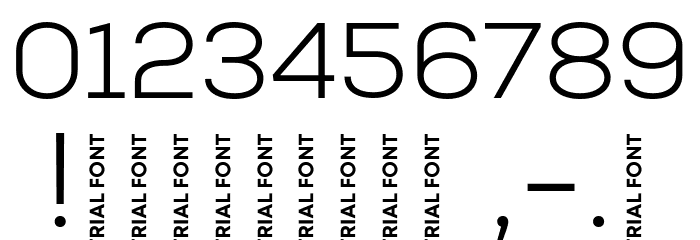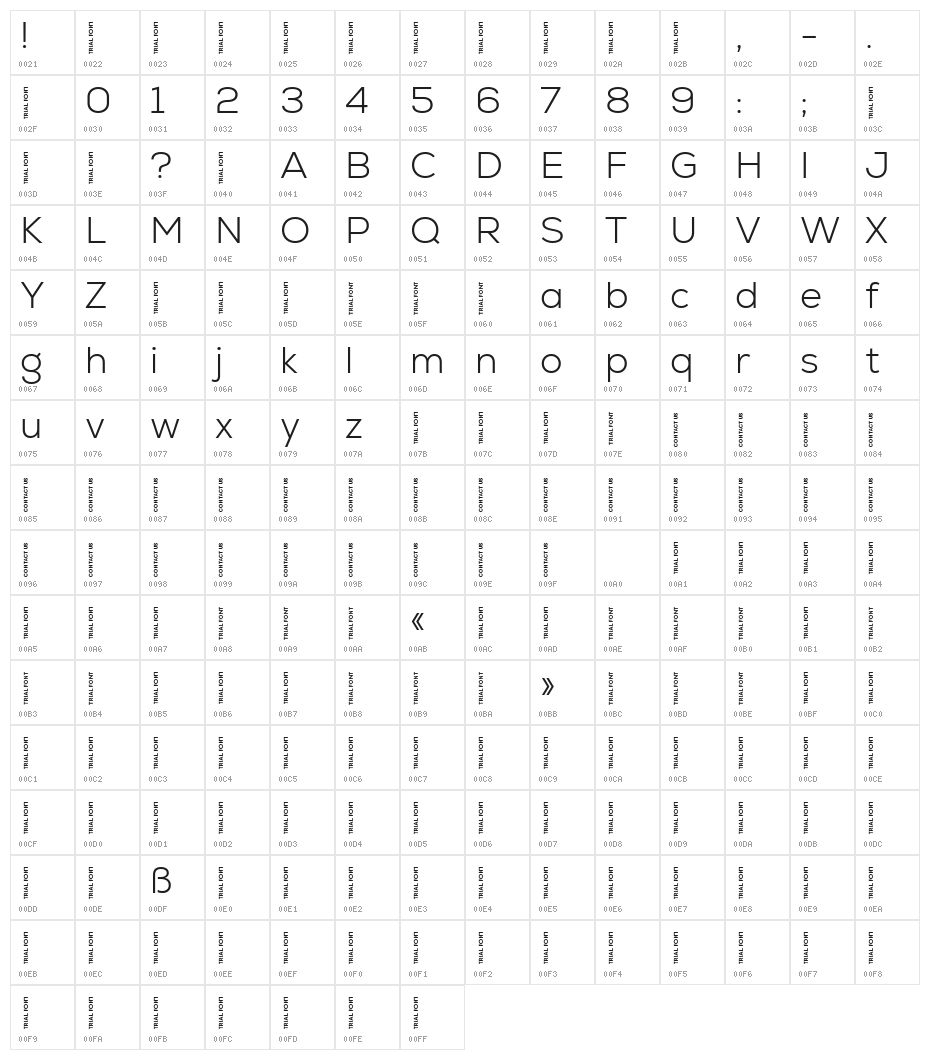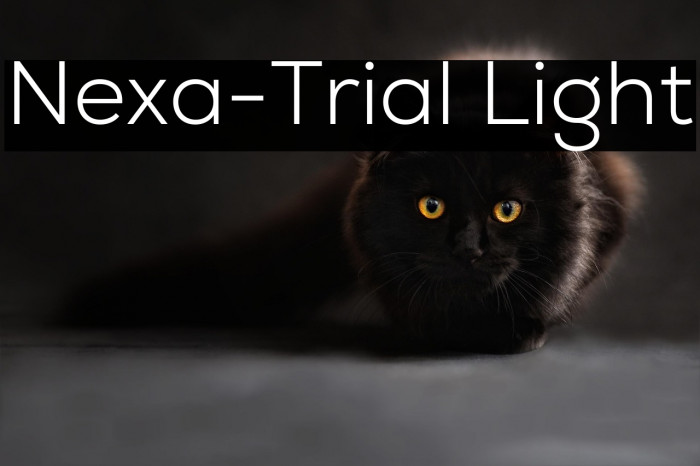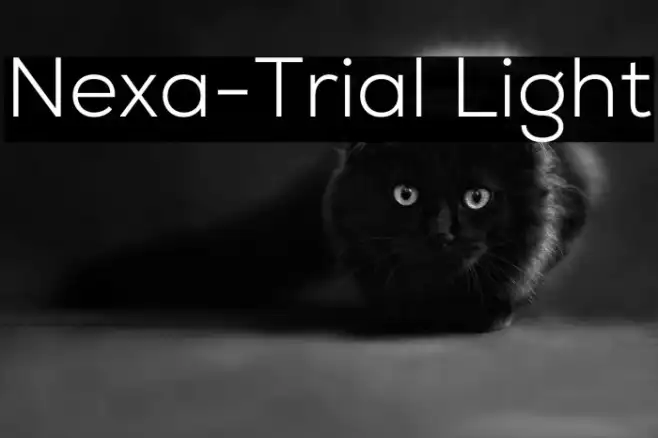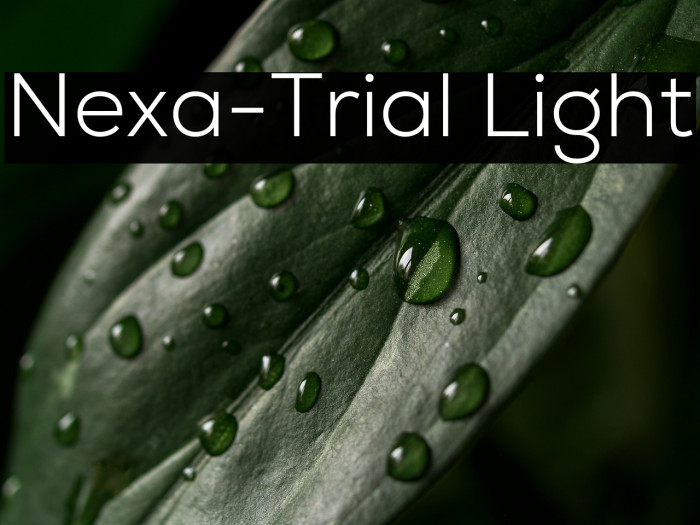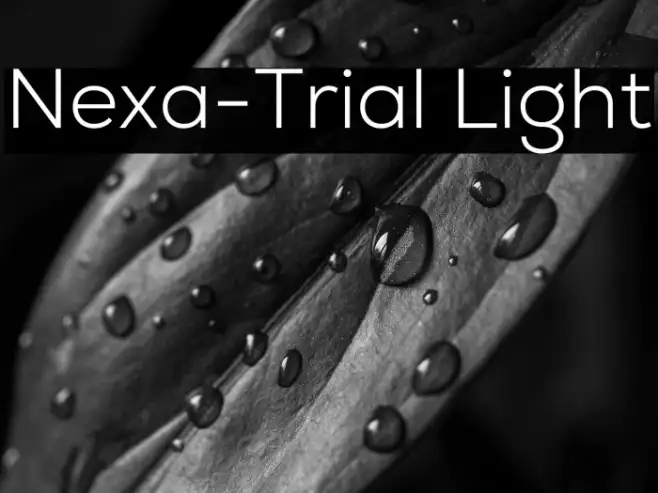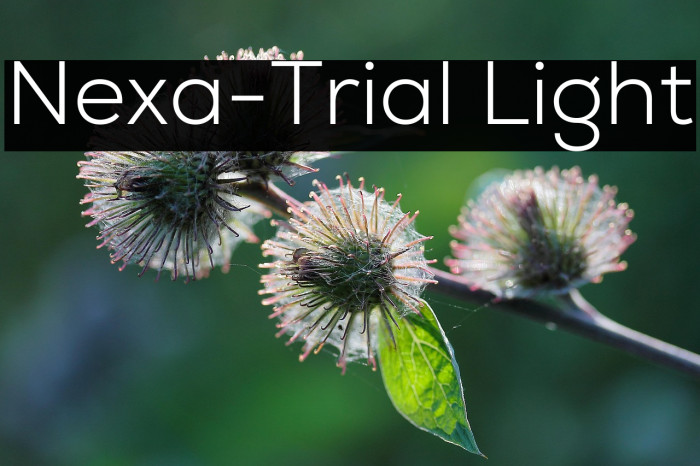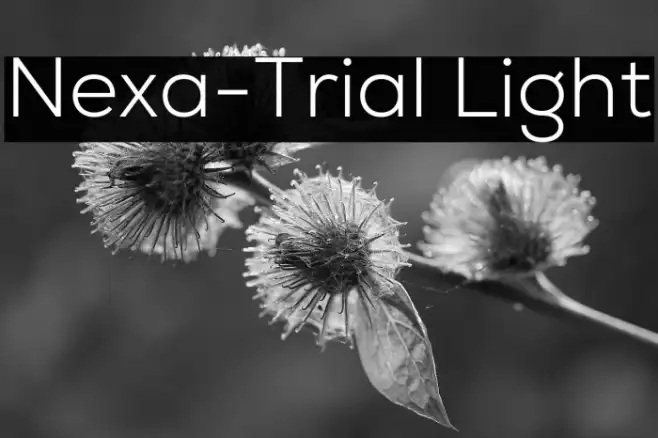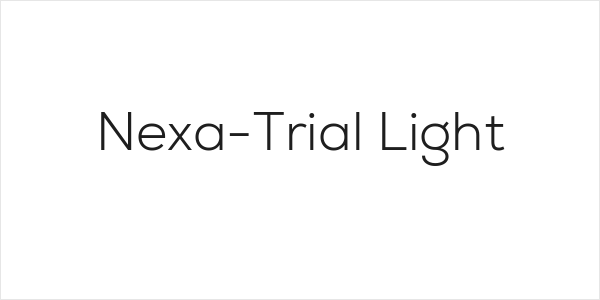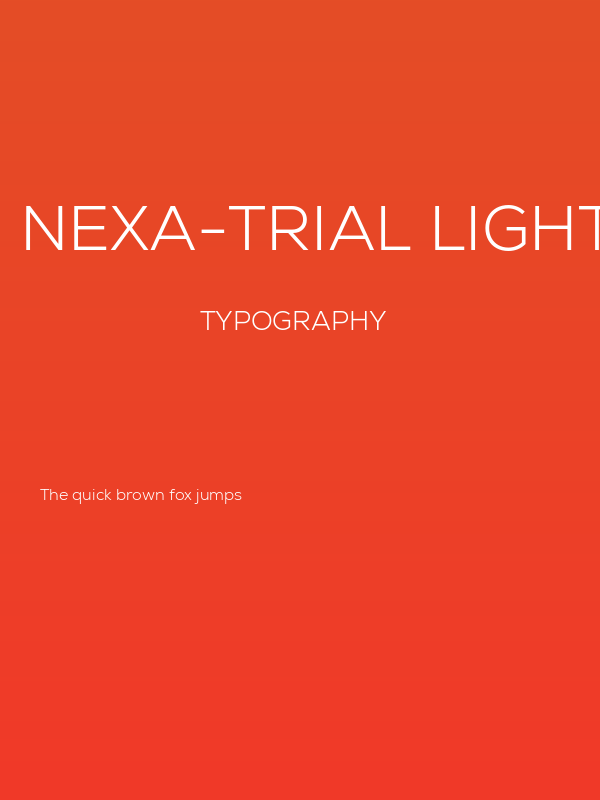
Nexa-Trial Light Font
Nexa-Trial Light Description
This font features a clean and modern sans-serif design with a geometric structure. The characters are evenly spaced, contributing to a balanced and harmonious appearance. The strokes are consistent in width, providing a uniform look across all letters and numbers. The font's simplicity and clarity make it highly legible, suitable for both digital and print media. Its minimalist style is versatile, allowing it to be used in a variety of contexts, from corporate branding to editorial design. The rounded edges of the characters add a touch of softness, enhancing its approachable and friendly aesthetic.
Use CaseHeadlines, Body text, Logos
Proposed ProjectsIdeal for corporate branding, editorial design, web design, and digital interfaces.